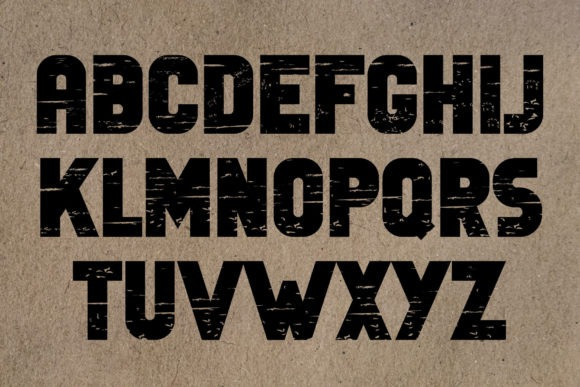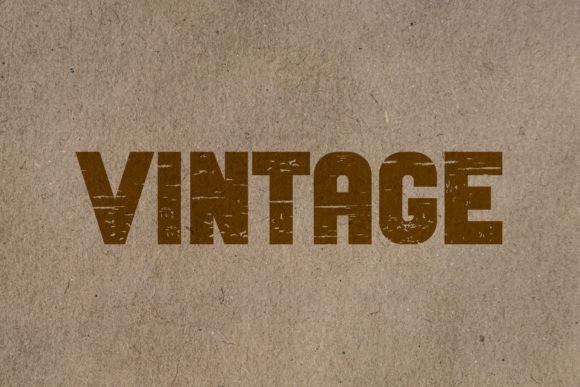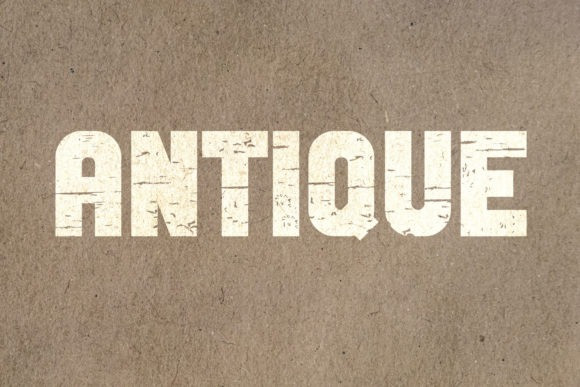
Antique Display Font
Antique Display Font is a bold, thick lettered and rough textured display font. Whatever the topic, this font will be a wonderful asset to your font library, as it has the potential to enhance any creation.